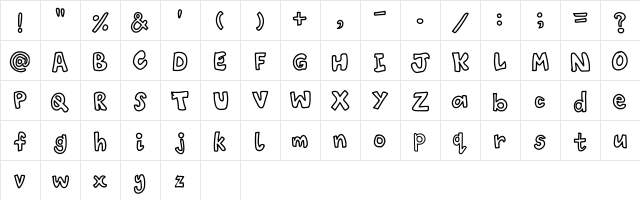
Childscribble By Reka has an approachable, lighthearted character - its loose, expressive forms are well-suited to children's content, casual branding, and fun-first design.
Font Pairing: Pairs well with a rounded or humanist sans for body copy, maintaining the friendly tone without relying on Childscribble By Reka to carry extended reading.
Pro Tip: Use Childscribble By Reka at larger display sizes where its expressive character can land. Pair with a clean, simple sans for body copy to maintain readability.